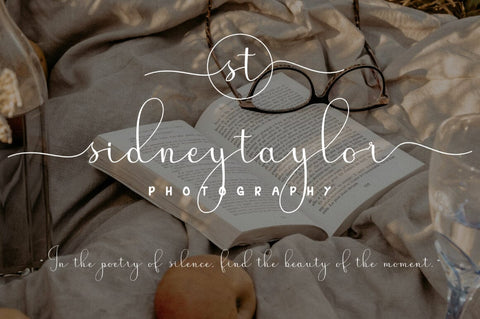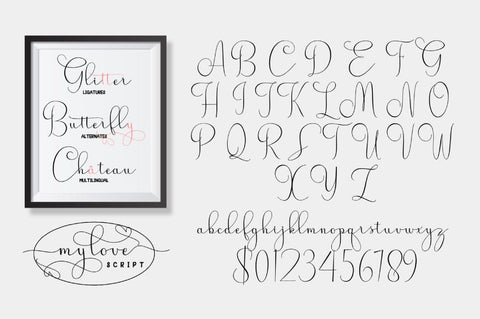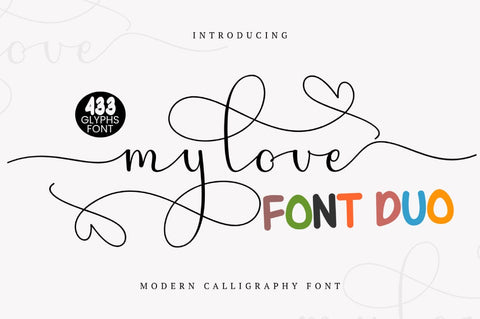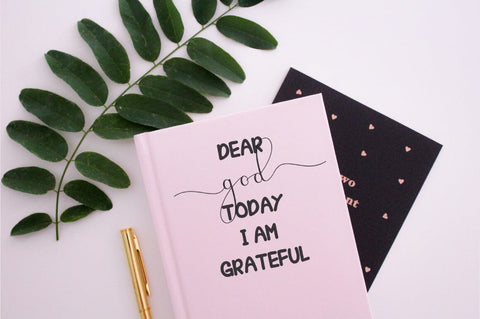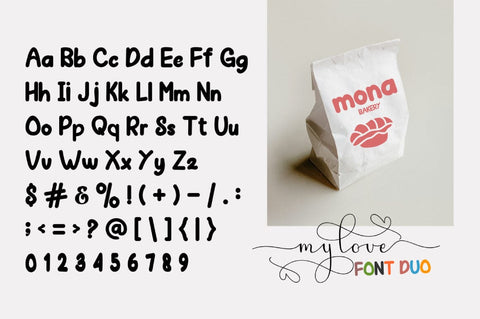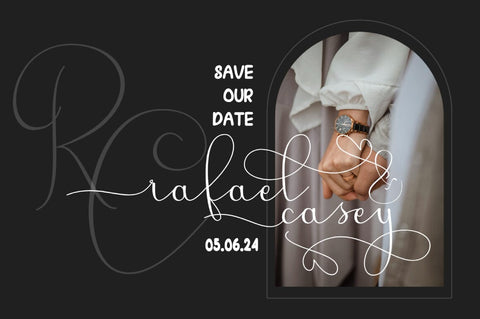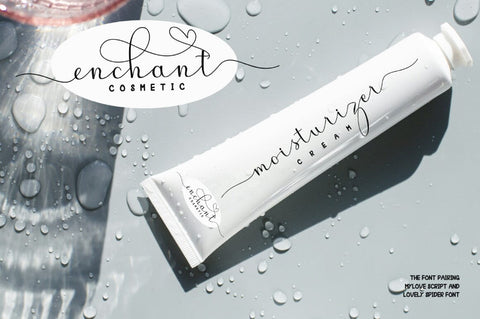
My Love Font Duo
My Love Font Duo is a beautiful and timeless handwritten font. It is the best choice for creating eye-catching logos, branding and quotes. This font is PUA coded which means you can access all the glyphs and swashes easily!